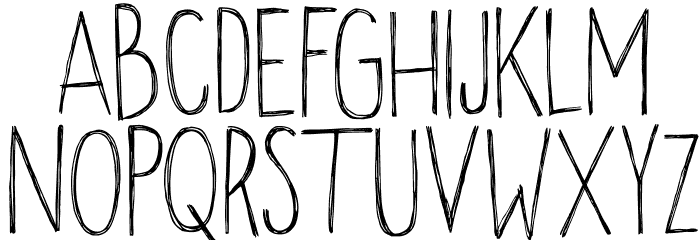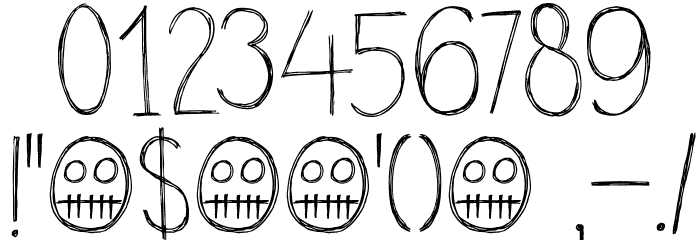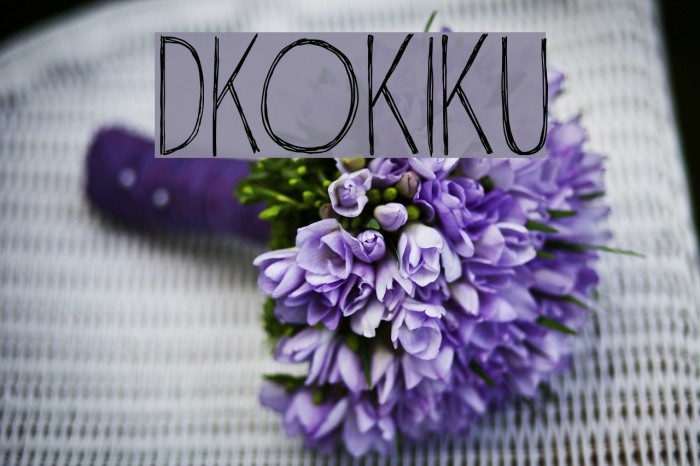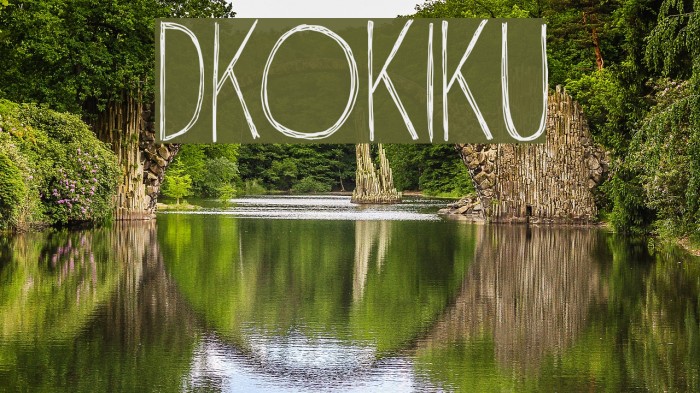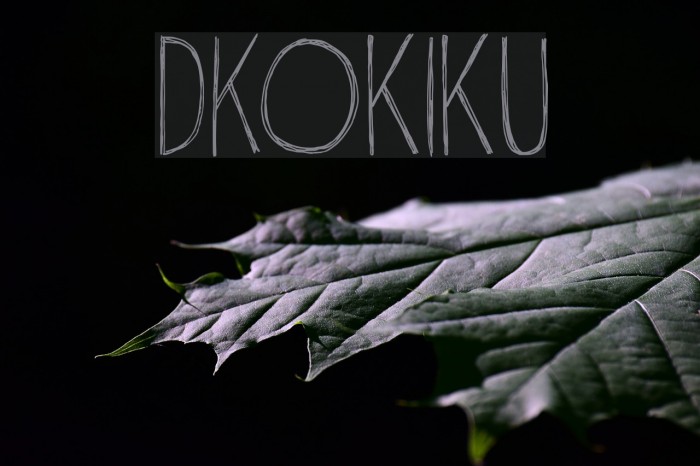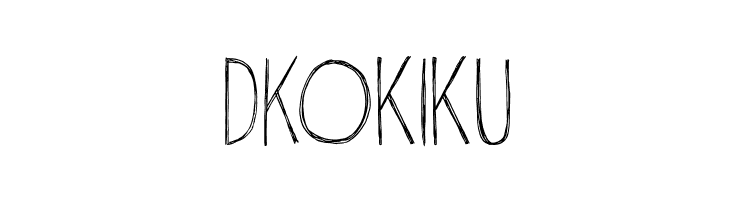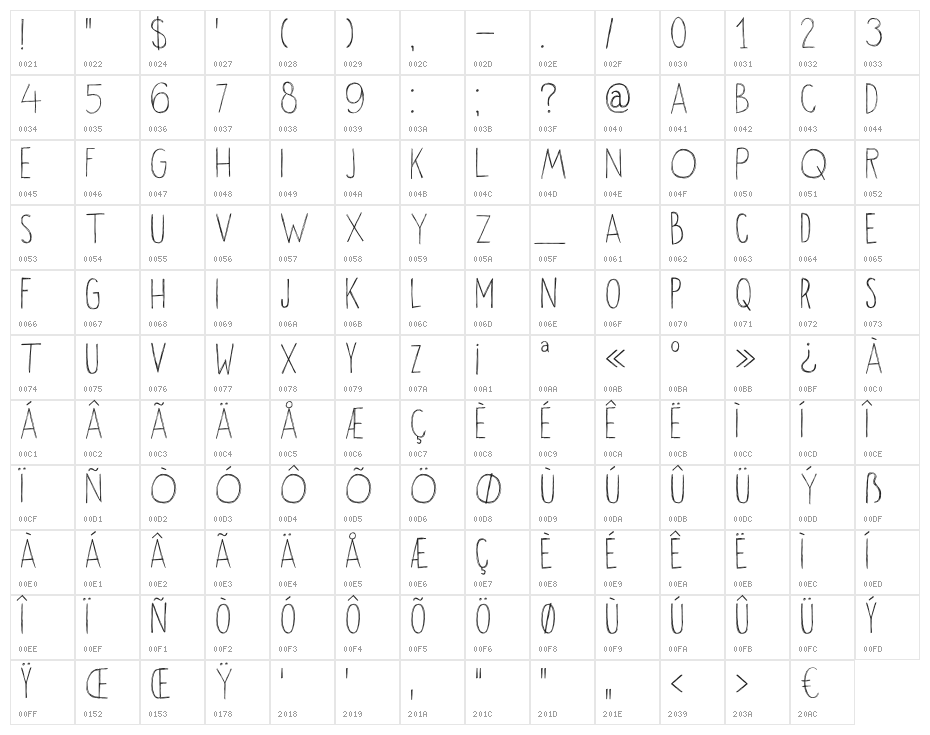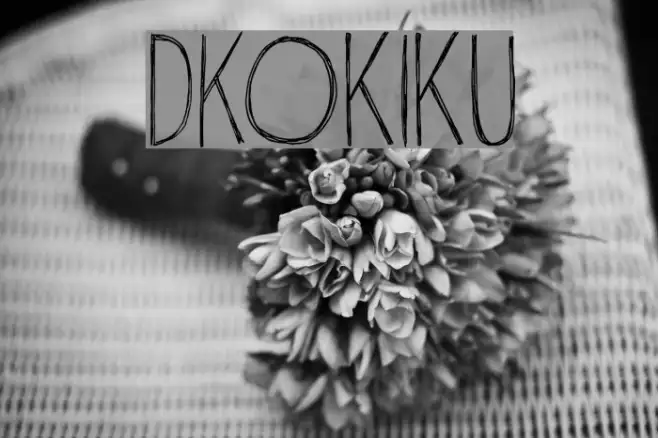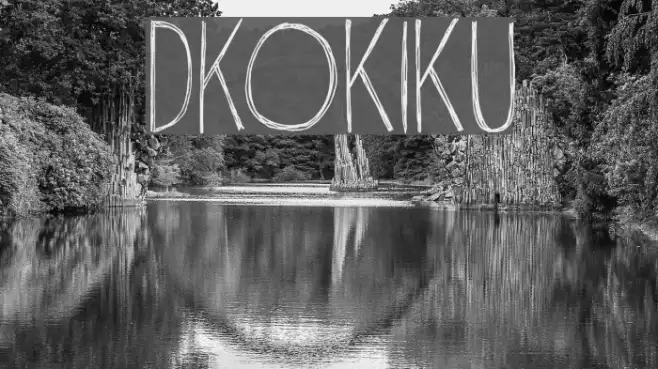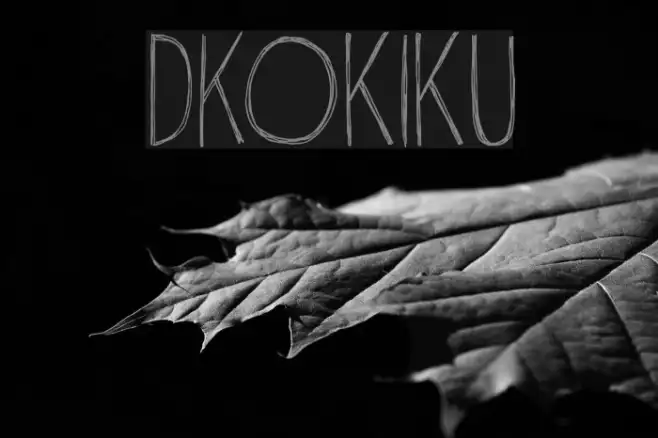
DKOkiku Font
This font features a playful and slightly eerie handwritten style, characterized by uneven strokes and a sketch-like appearance. The letters are tall and narrow, with a whimsical touch that gives them a unique personality. The uppercase and lowercase letters maintain a consistent style, with the lowercase being slightly smaller in size. Numbers are similarly styled, maintaining the quirky and hand-drawn feel. Special characters, including symbols like the skull, add to the font's distinctive and playful nature. This font is perfect for projects that require a touch of fun and creativity, while still being legible and clear.
A playful, sketch-like handwritten font with a whimsical and slightly eerie style.
- Proposed Projects: Ideal for Halloween-themed designs, children's book covers, playful posters, and creative branding projects.